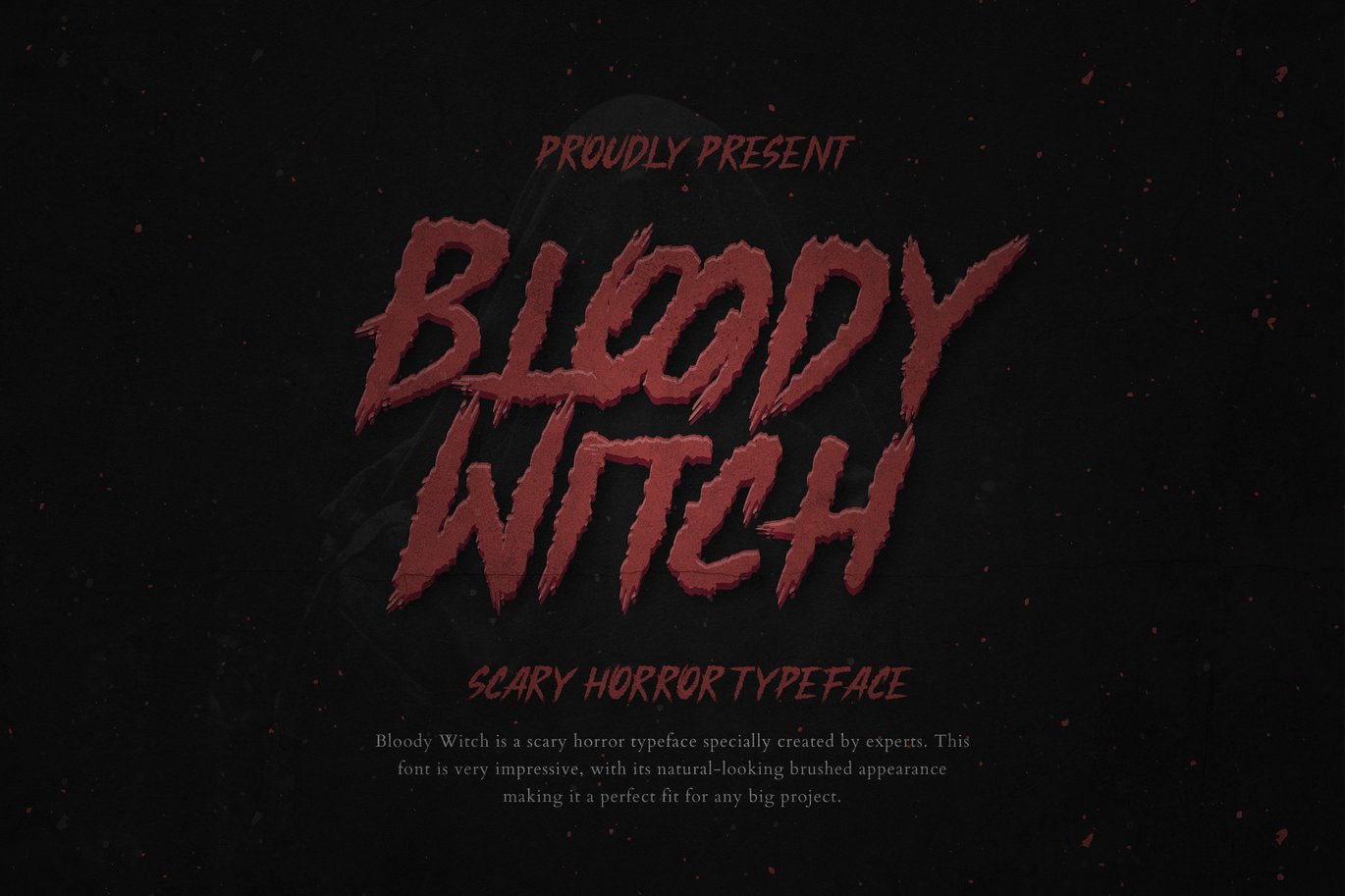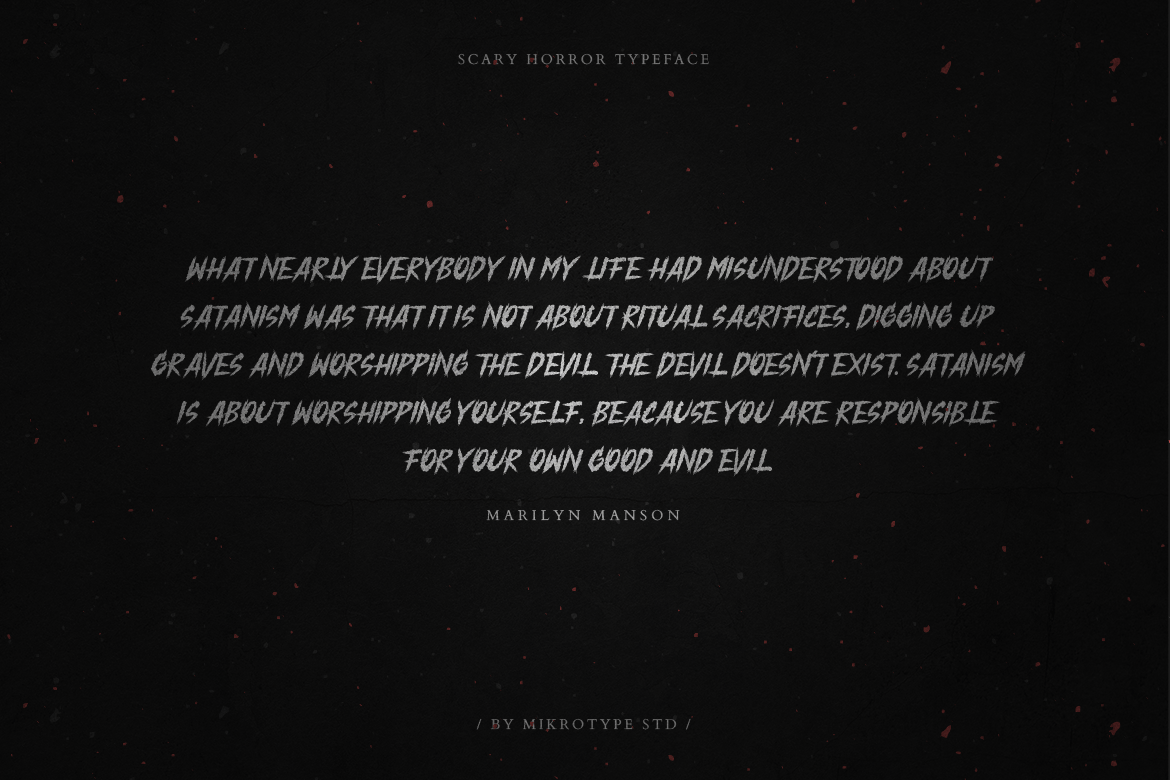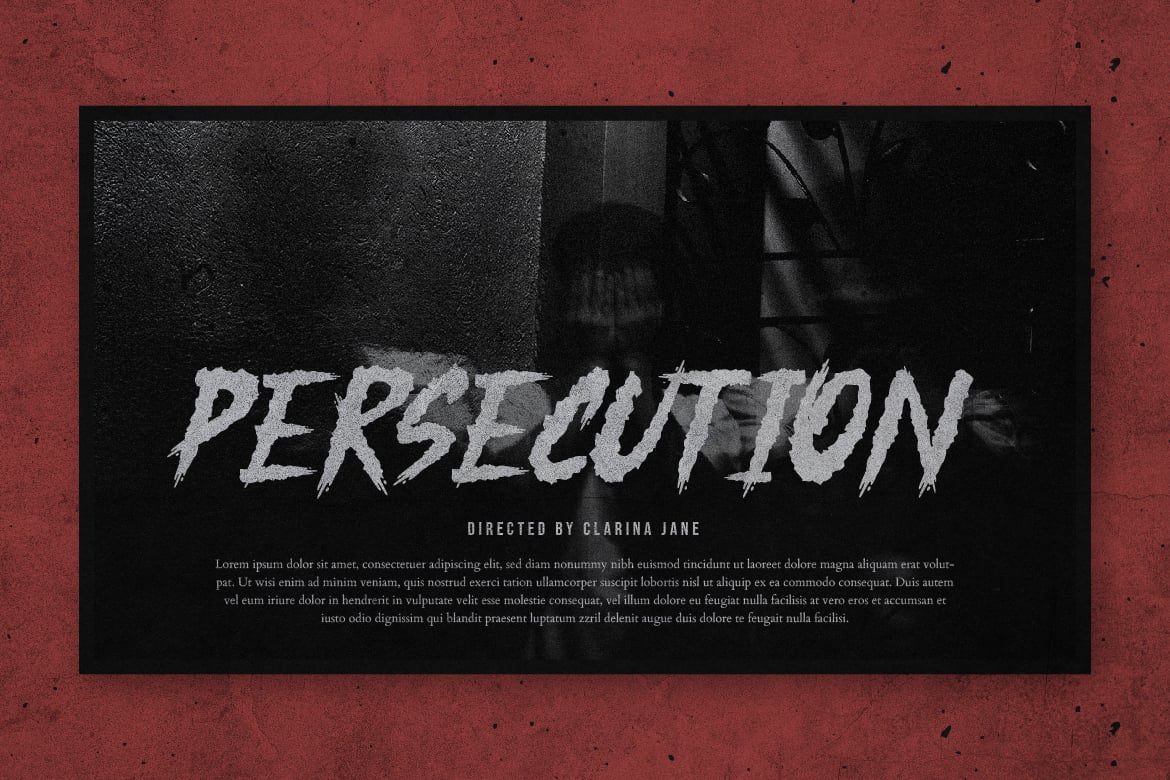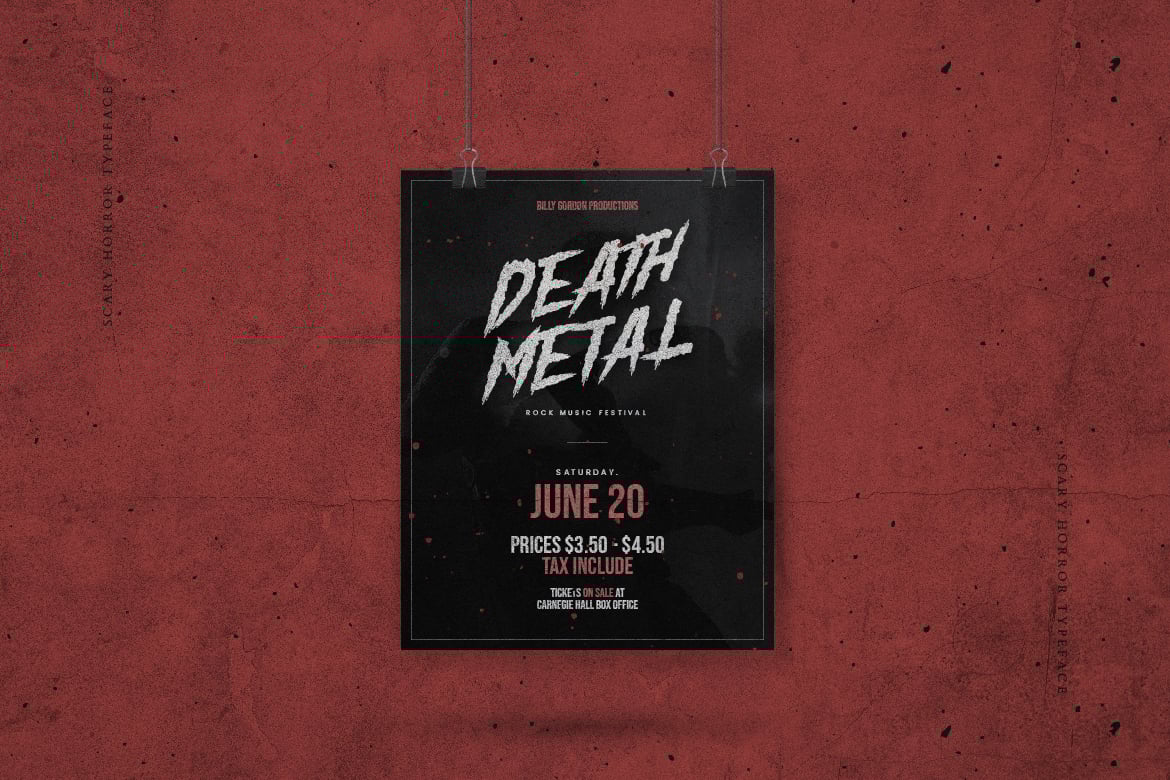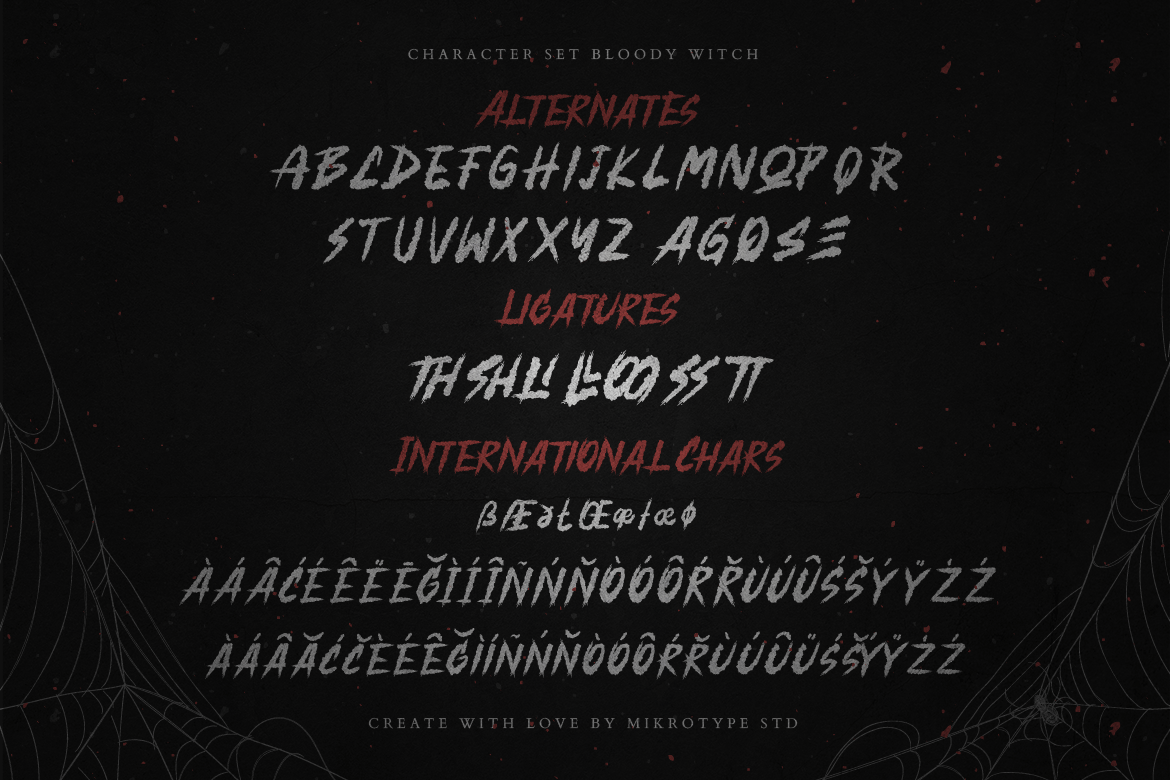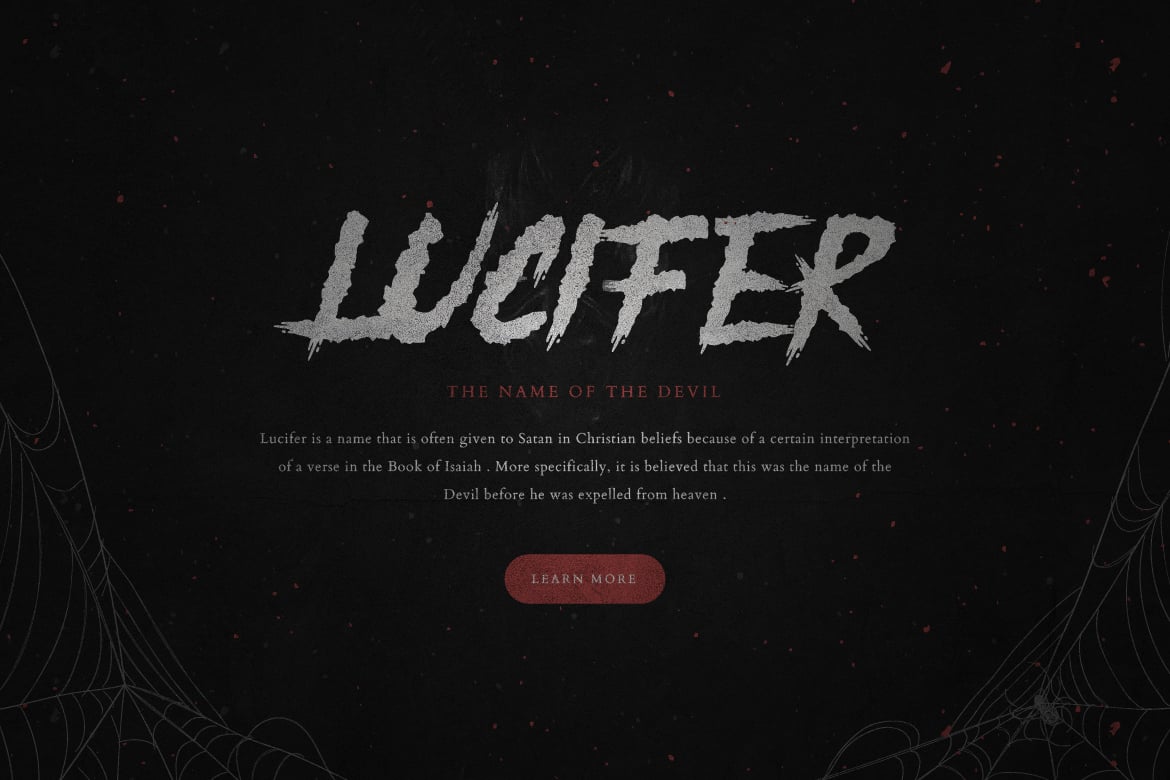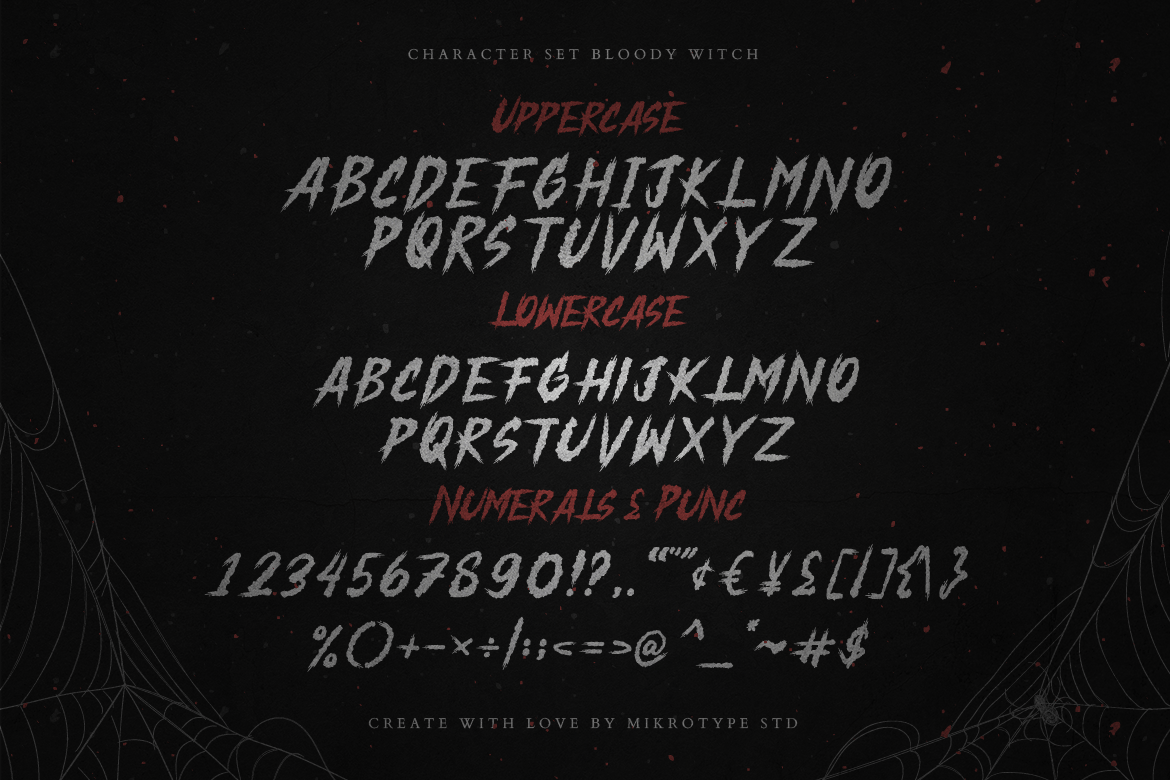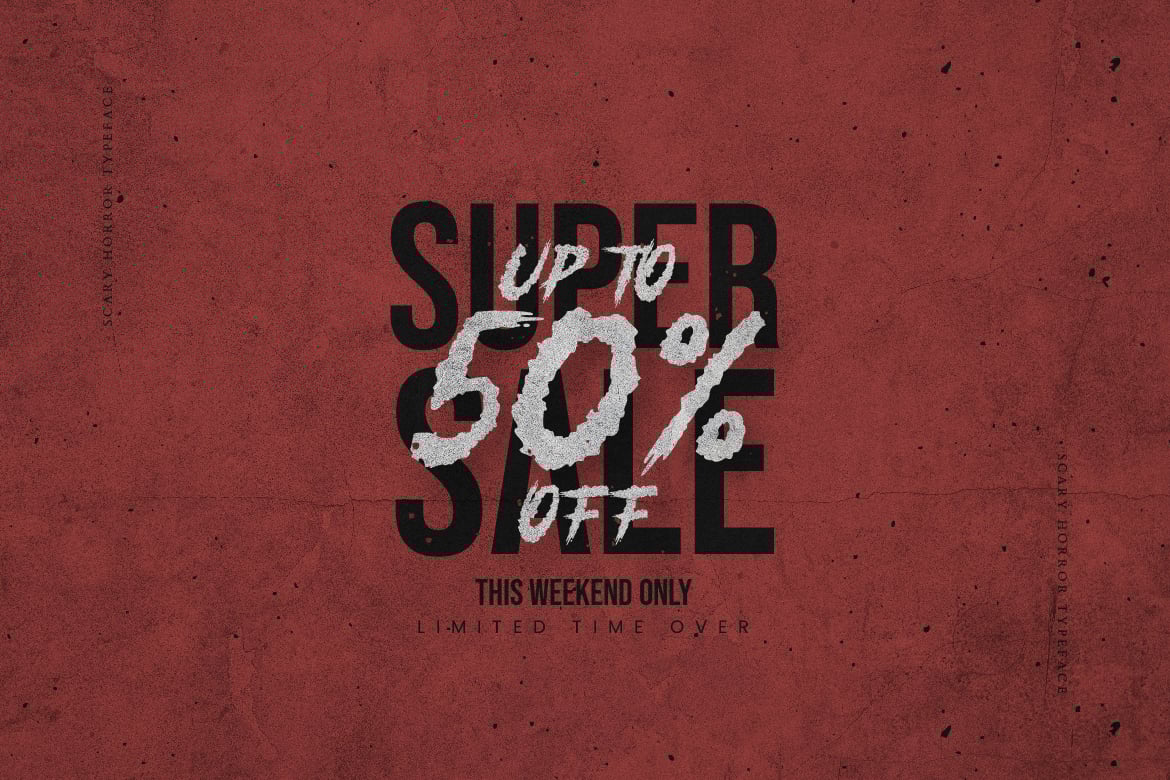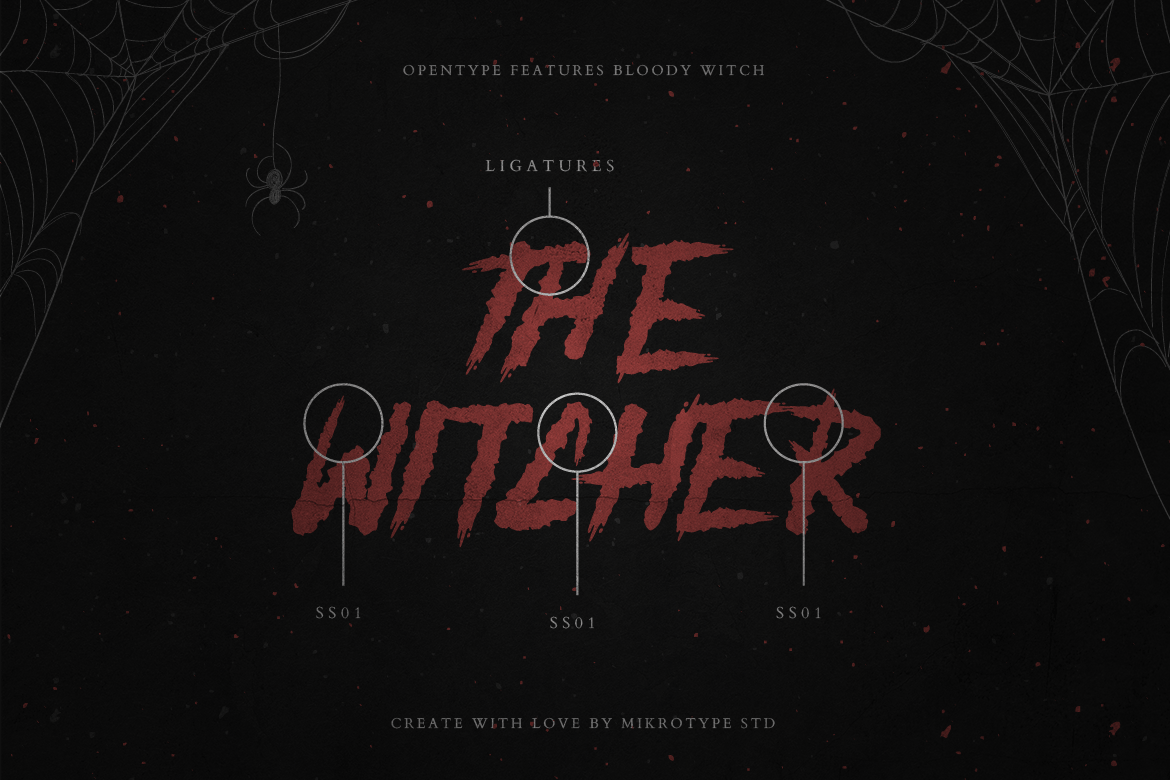
Bloody Witch Horror Instagram Font
Introducing Bloody Witch – A scary horror typeface specially created by experts. This font is very impressive, with its natural-looking brushed appearance making it a perfect fit for any big project. The font is perfect for for movie title, logo, blogging, brand identity, book title, social media, branding, wedding invites, cards or simply use it in your next design project and suitable to use for many occasion.
- Standard Characters
- Numerals
- Swashes
- Multilingual Characters support for;Afrikaans, Albanian, Czech, Danish, Dutch, English, Estonian, Finnish, French, Hungarian, Italian, Latvian, Lithuanian, Norwegian, Polish, Portugese, Slovak, Slovenian, Spanisch, Swedish, Turkish.